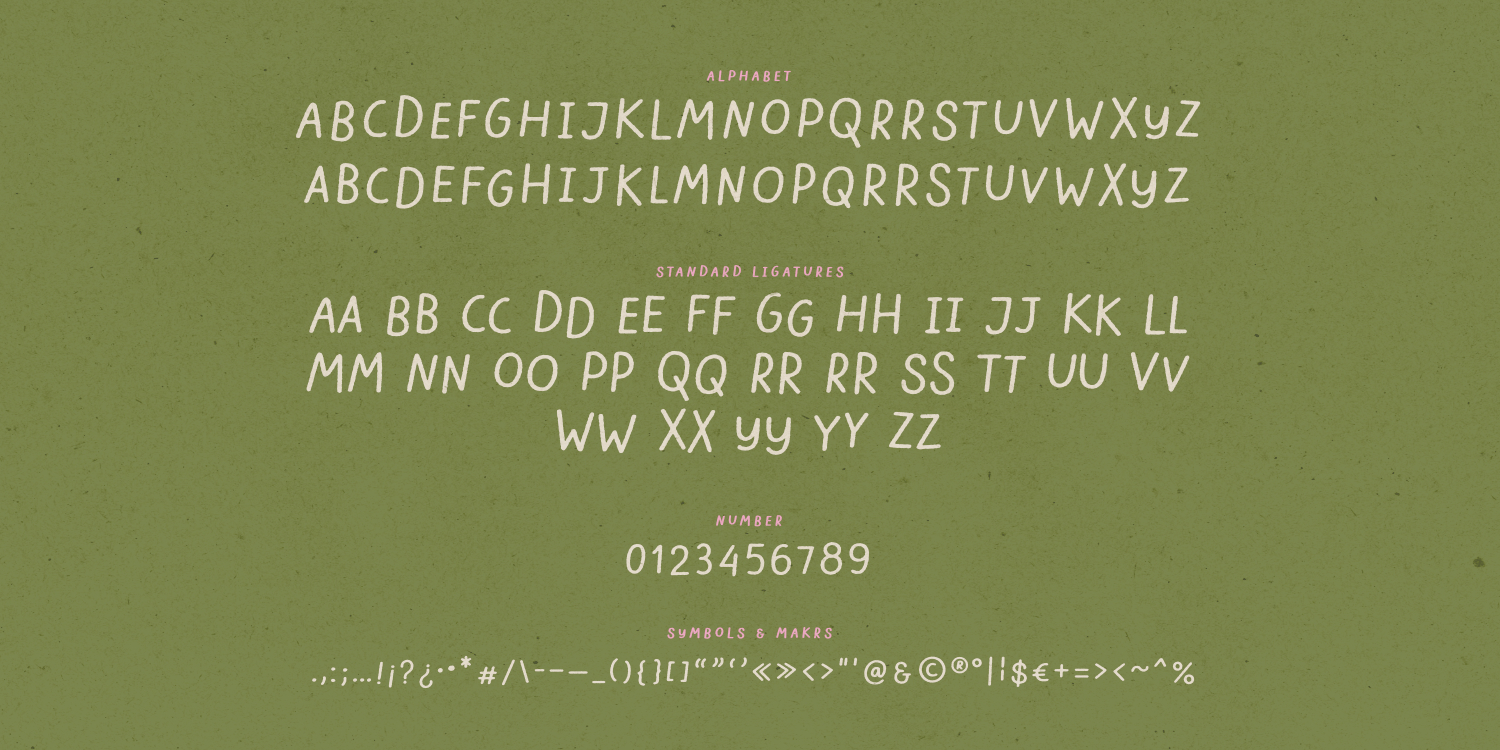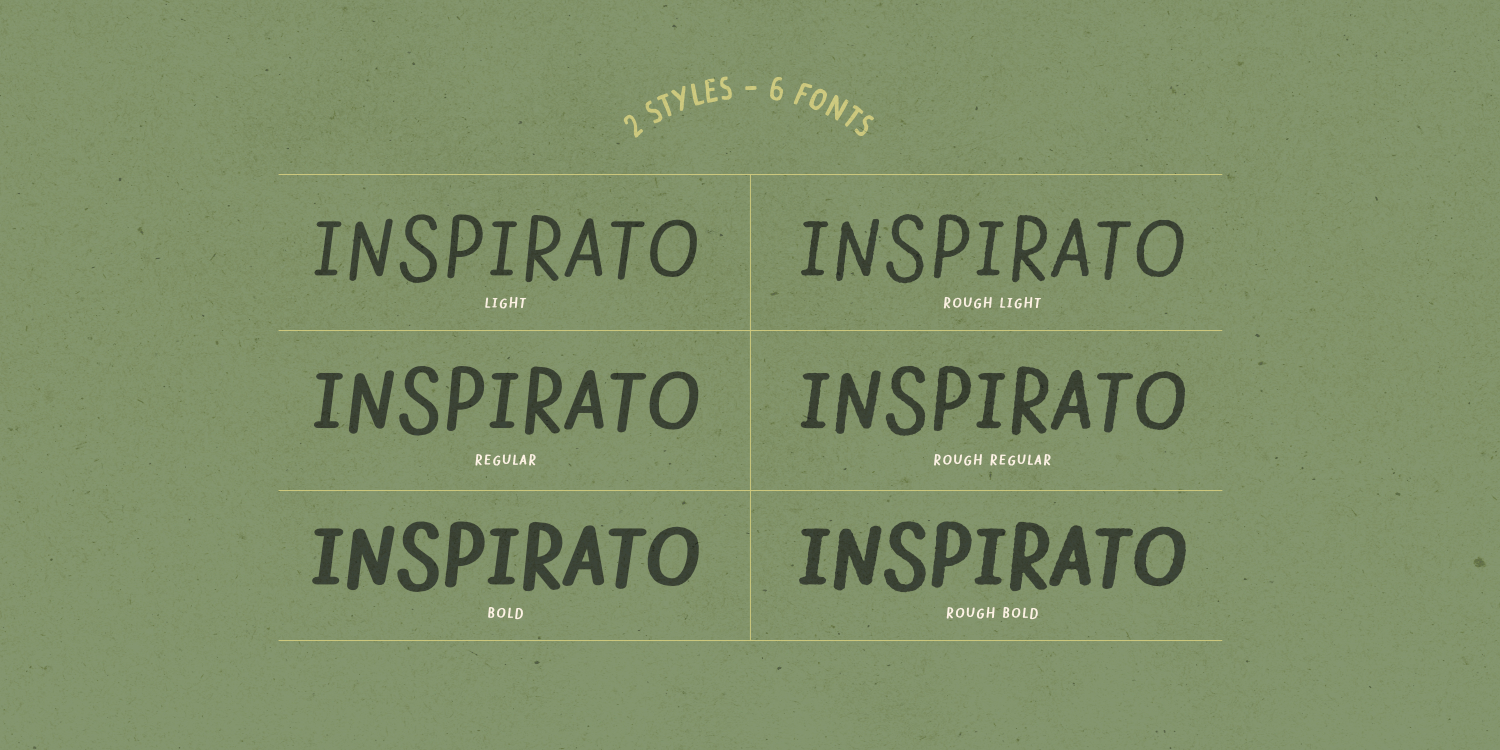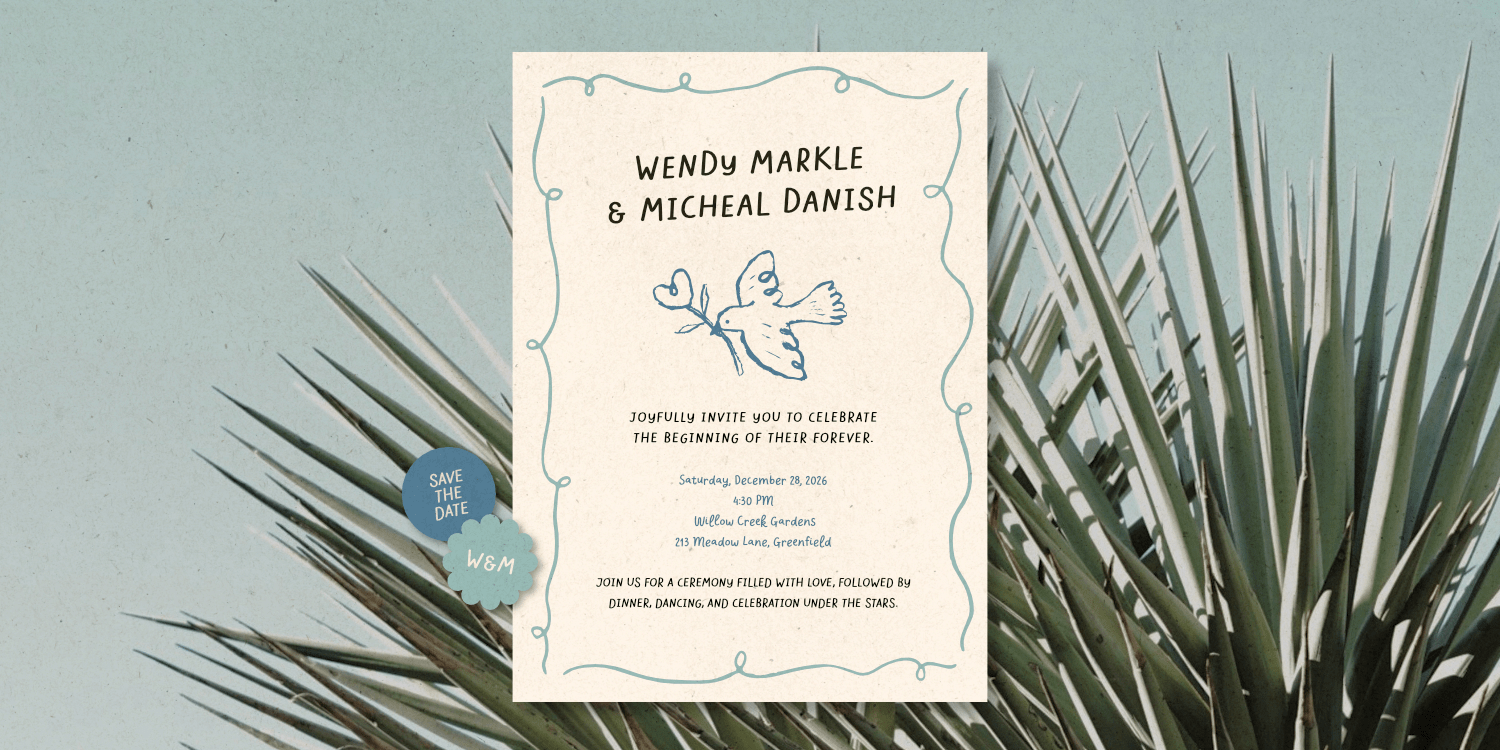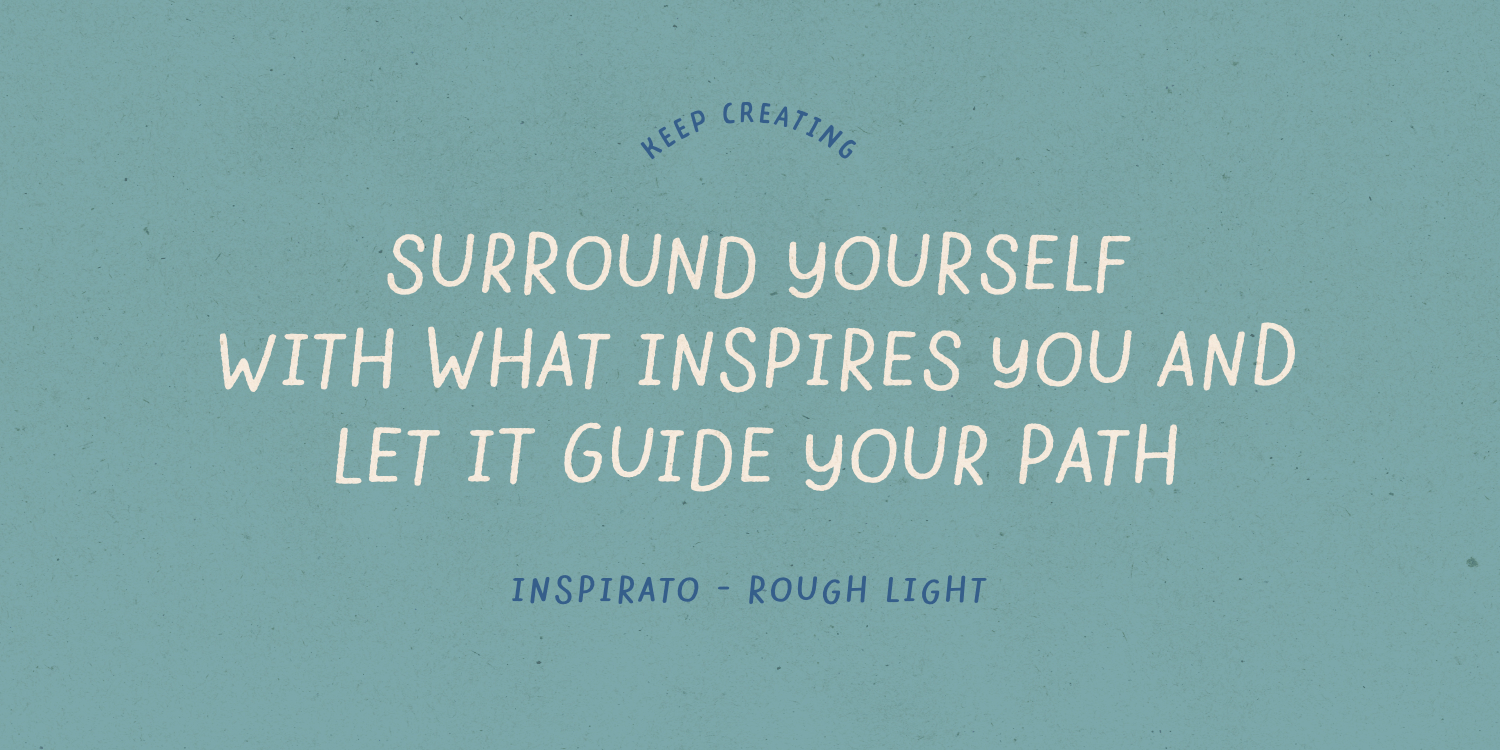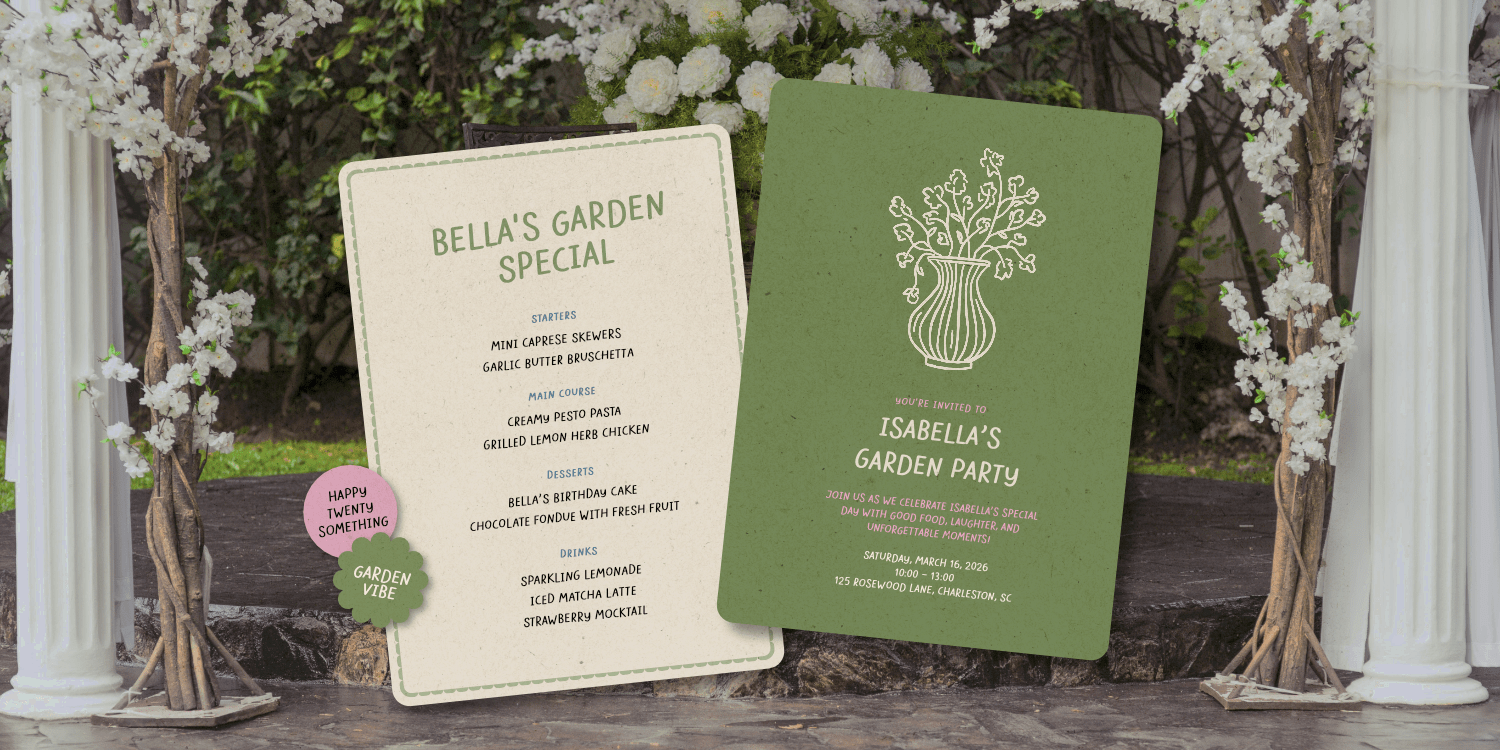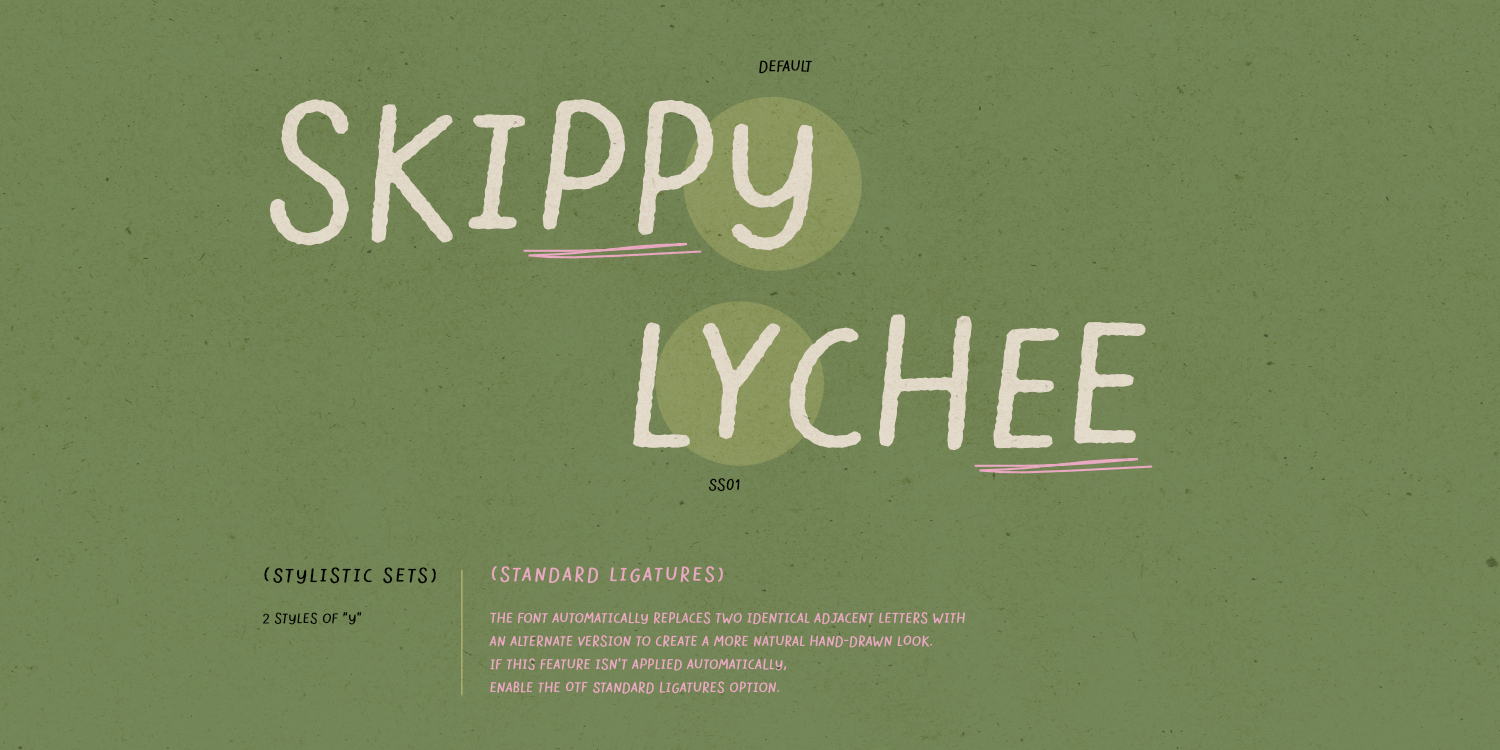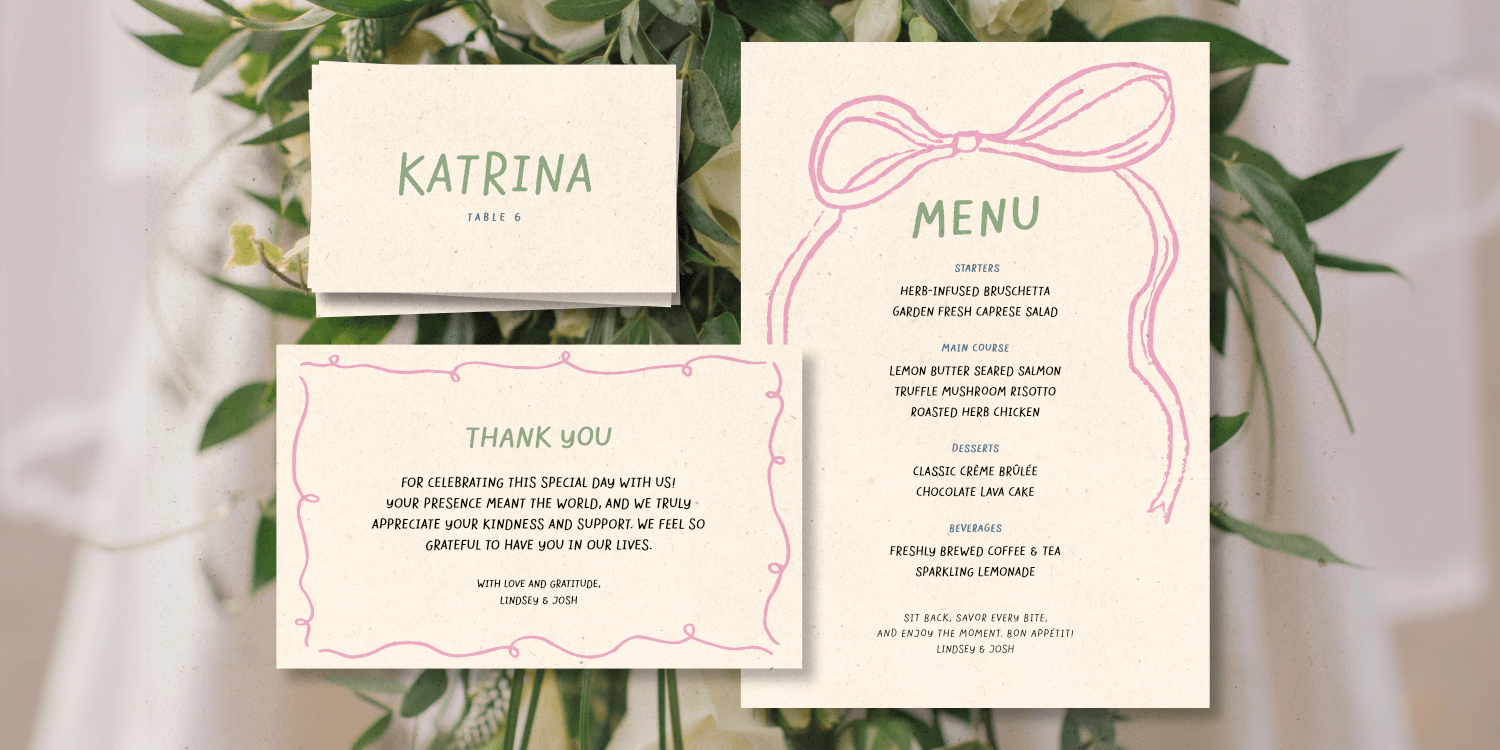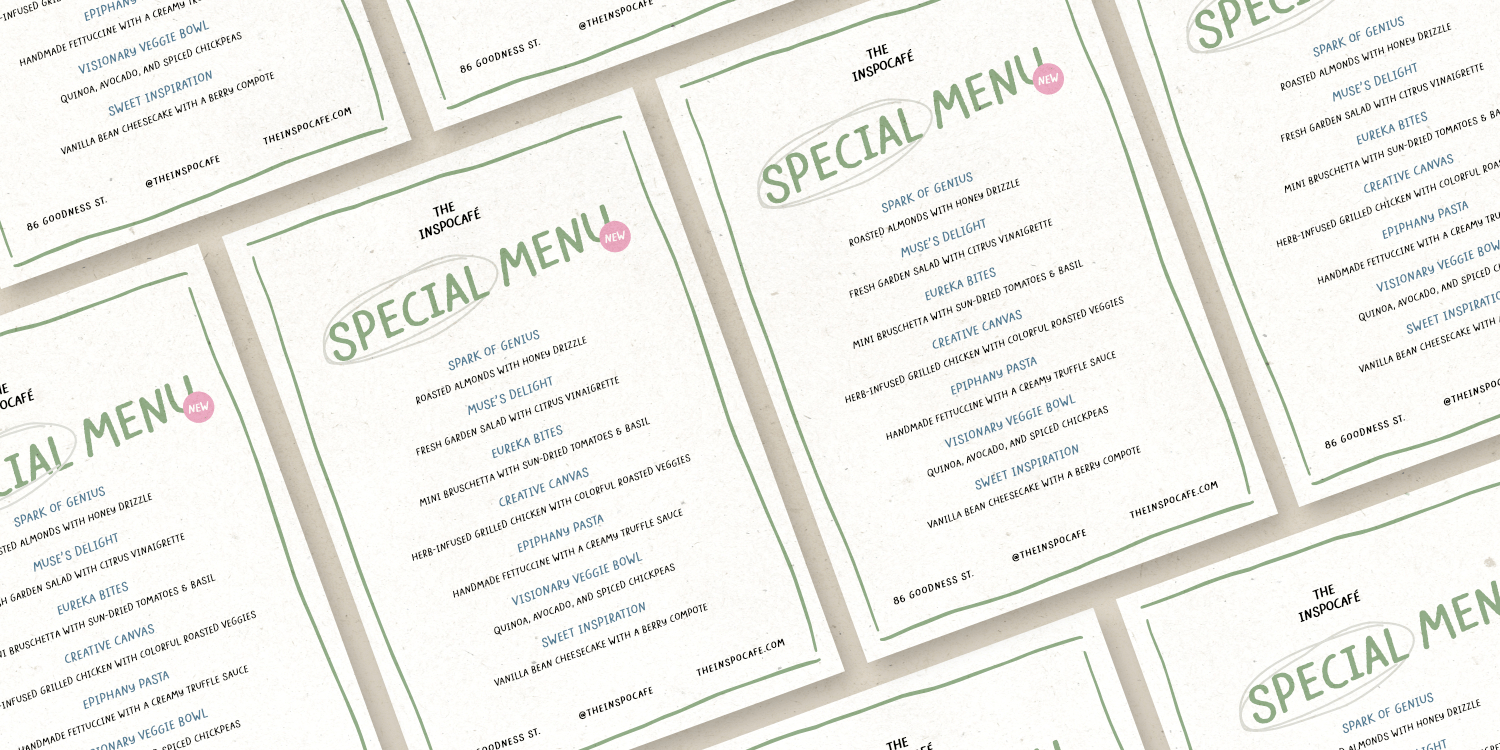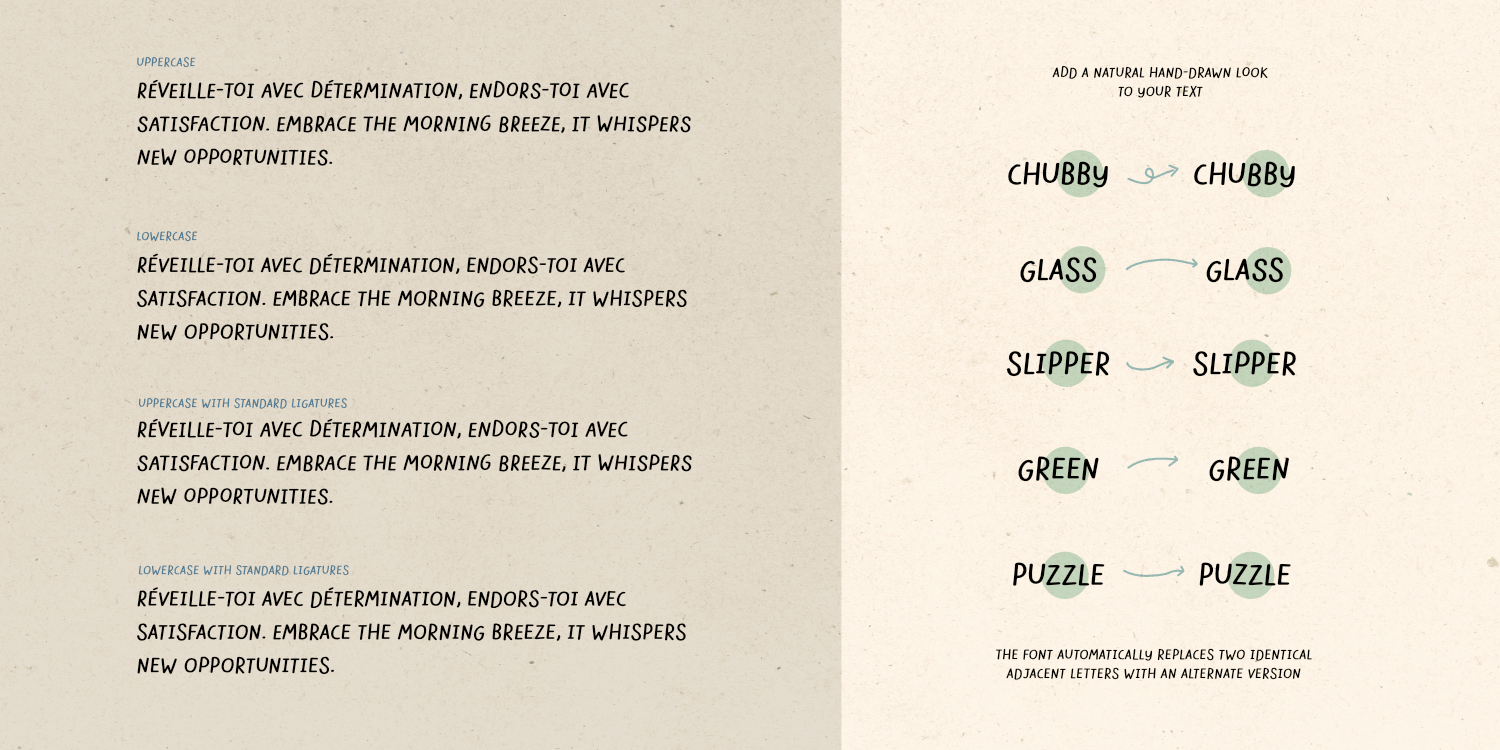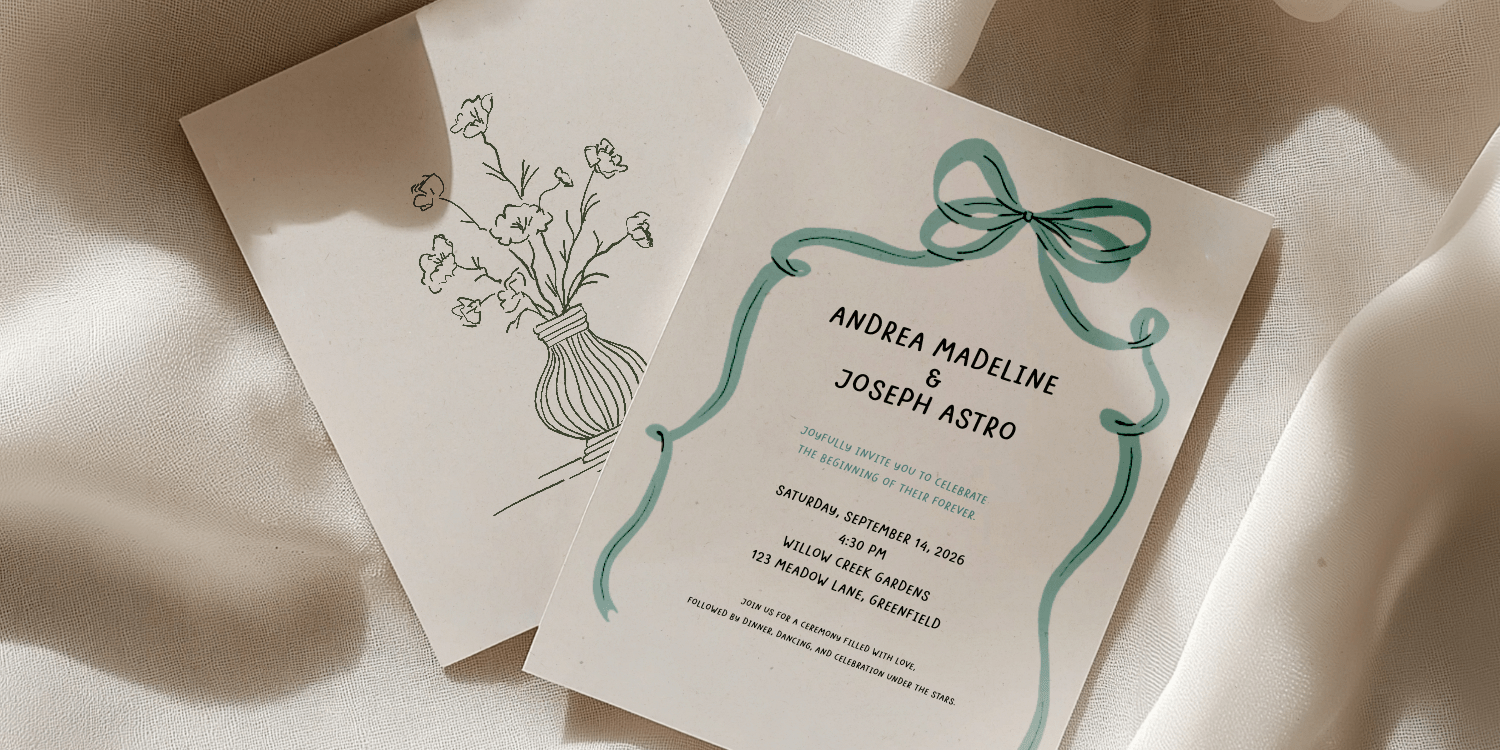
Inspirato
Font Family by type peace
Inspirato is a hand-lettered, all-caps font family with six fonts—Light, Regular, and Bold, each in normal and rough textures. Featuring OpenType ligatures and multilingual support, it’s perfect for adding a personal touch to any design project.
The font automatically replaces two identical adjacent letters with an alternate version to create a more natural handwritten look. If this feature isn't applied automatically, enable the OTF Standard Ligatures option.
Font features:
• All-cap
• 2 styles - 6 fonts
• Numbers, marks and symbols
• Multilingual support
• Opentype ligatures, stylistic alternates features
Script: Latin
Supported Languages: English, Western European, Central European, South Eastern European, South American, Oceanian, Vietnamese, Esperanto